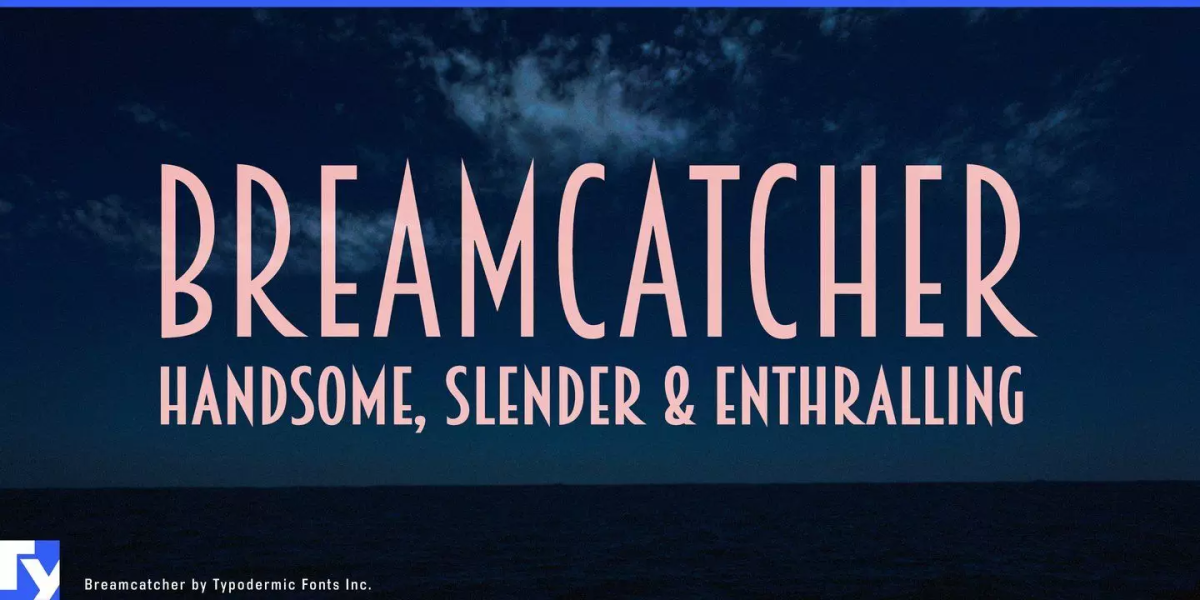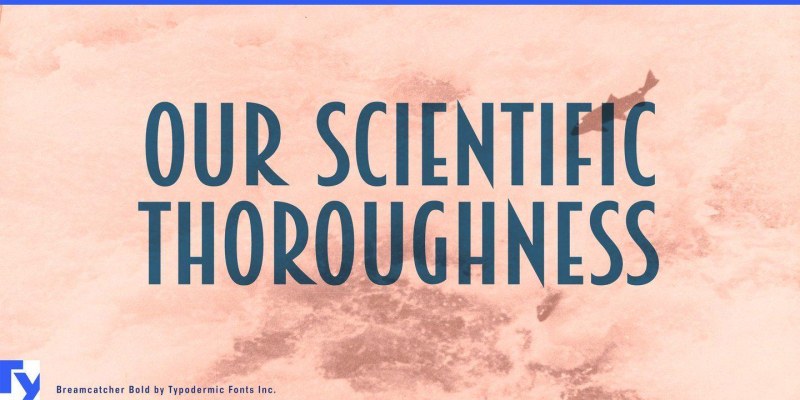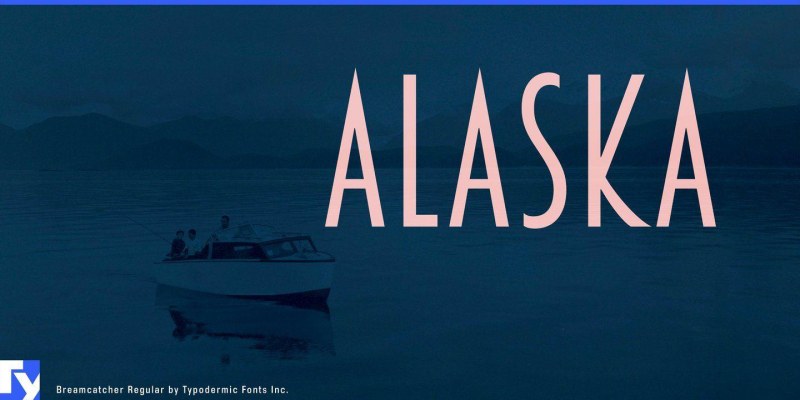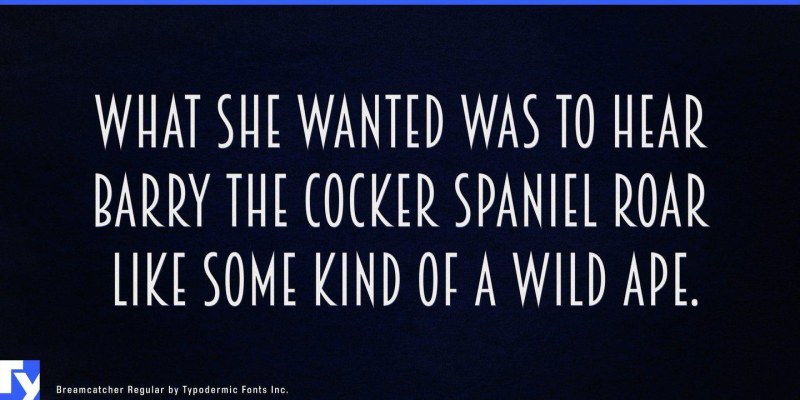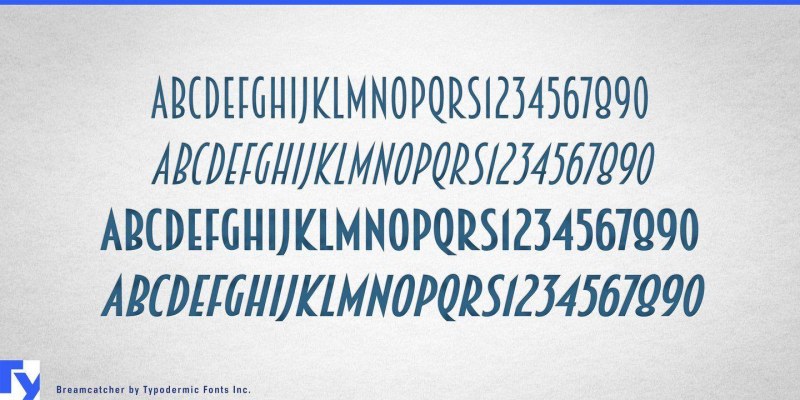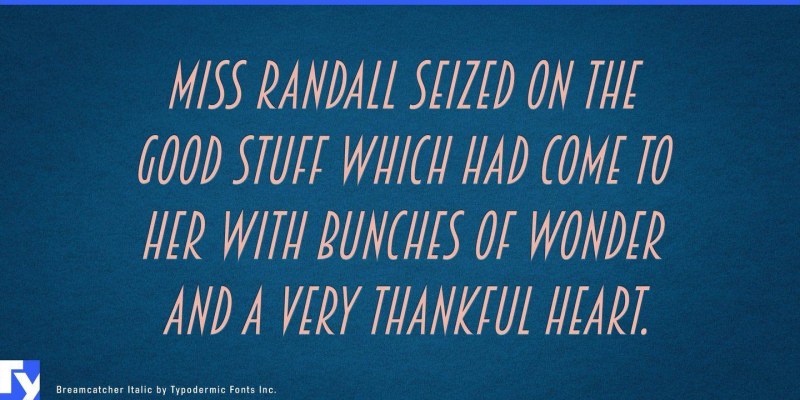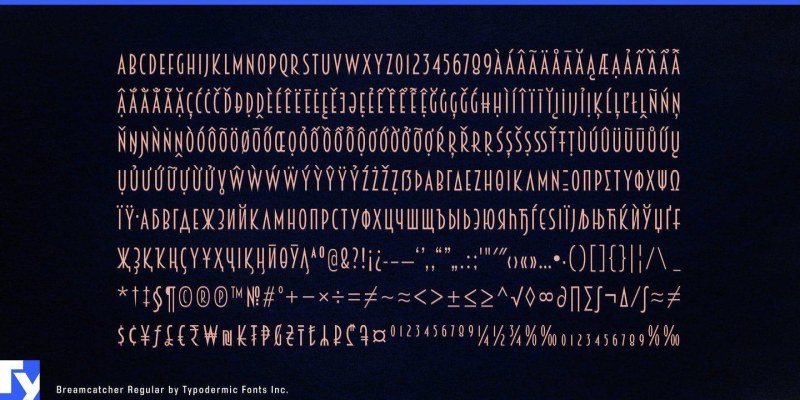
Breamcatcher Font Family
Breamcatcher is a svelte, Art Deco typeface inspired by the piano sheet music for “With Every Breath I Take” which was featured in the Bing Crosby/Kitty Carlisle musical comedy film, “Here is my Heart” in 1934. Compact sans-serif typefaces can look salient, but Breamcatcher is a slow jam. Loose spacing and lazy strokes will give your message a breezy, reassuring voice—and a spritz of romance. OpenType fractions, numeric ordinals and lots of currency symbols are included. Breamcatcher is available in Regular, Italic and Bold-Italic styles. Most Latin-based European, Vietnamese, Greek, and most Cyrillic-based writing systems are supported, including the following languages.
Breamcatcher Font Family is a Font Family font that brings a professional and versatile look to your projects. Breamcatcher is a svelte, Art Deco typeface inspired by the piano sheet music for “With Every Breath I Take” which was featured in the Bing Crosby/Kitty Carlisle musical comedy film, “Here is my Heart” in 1934.